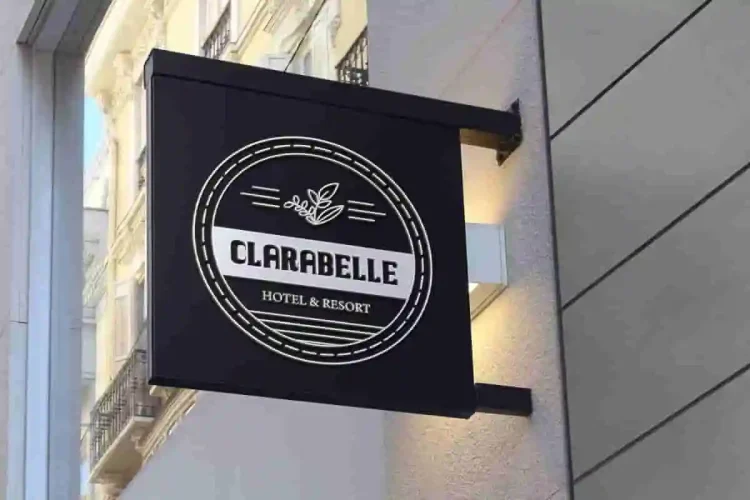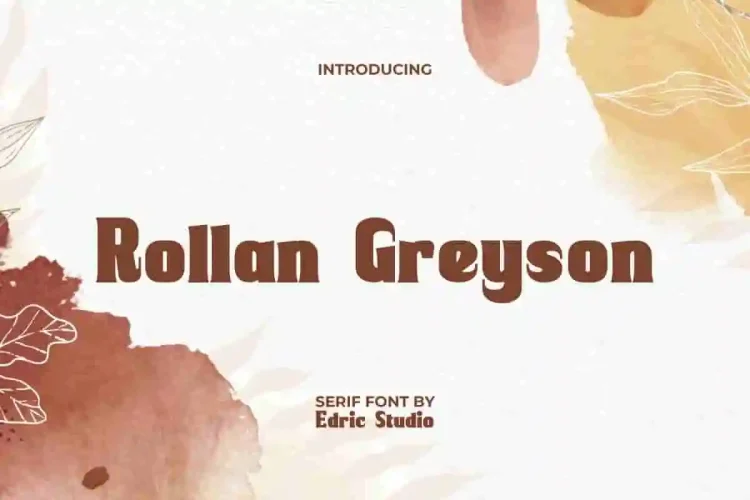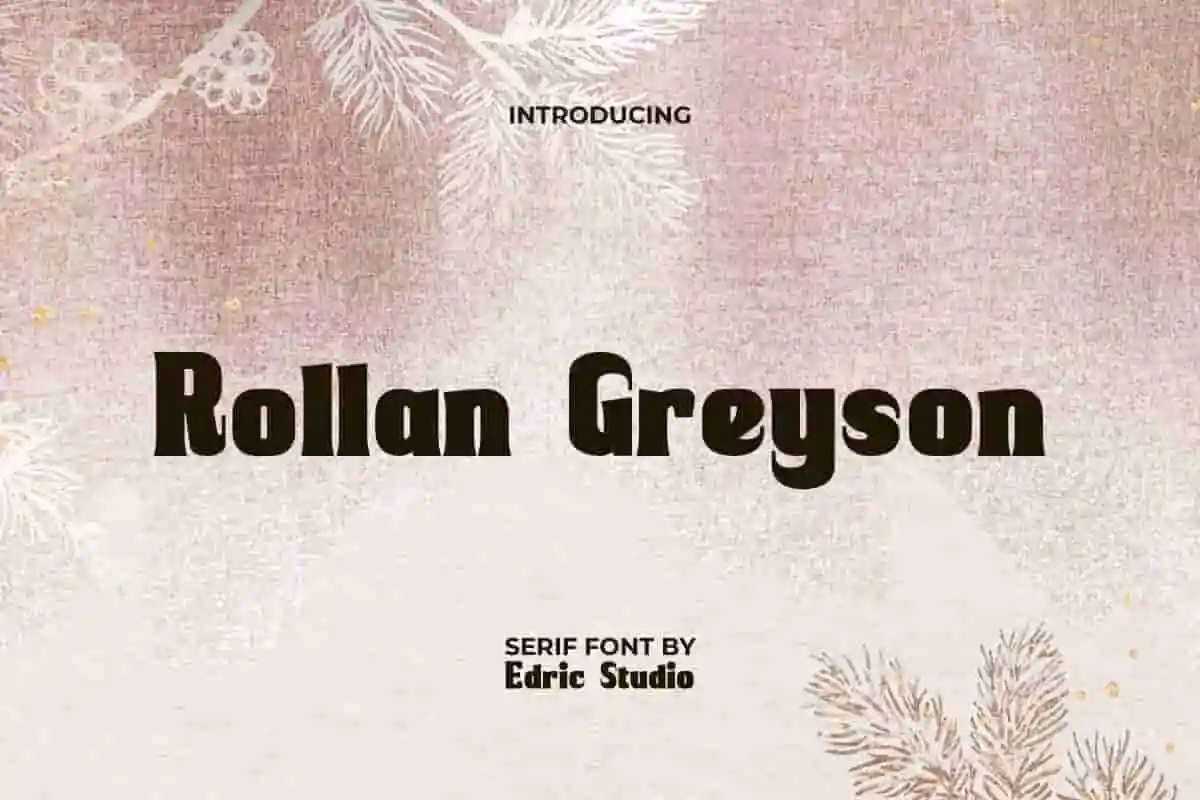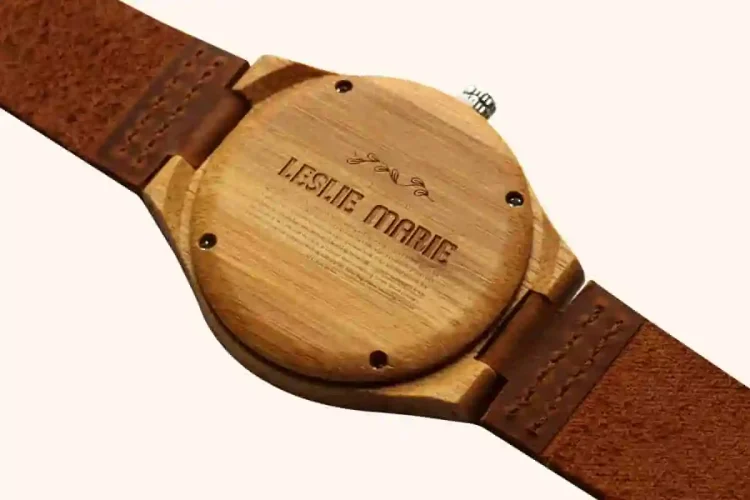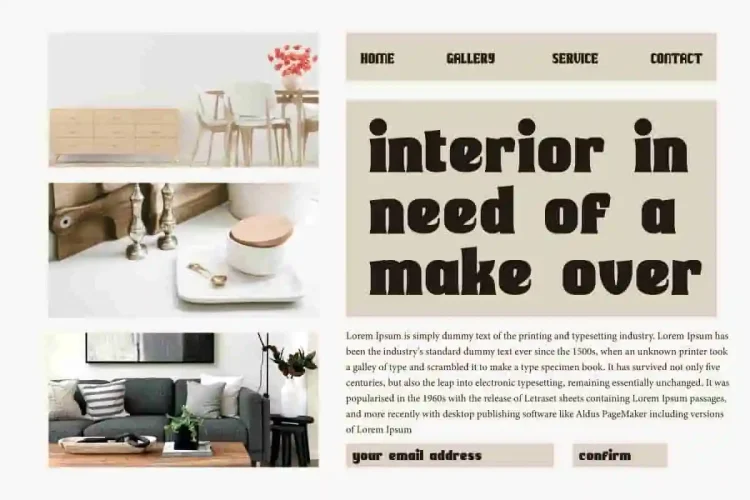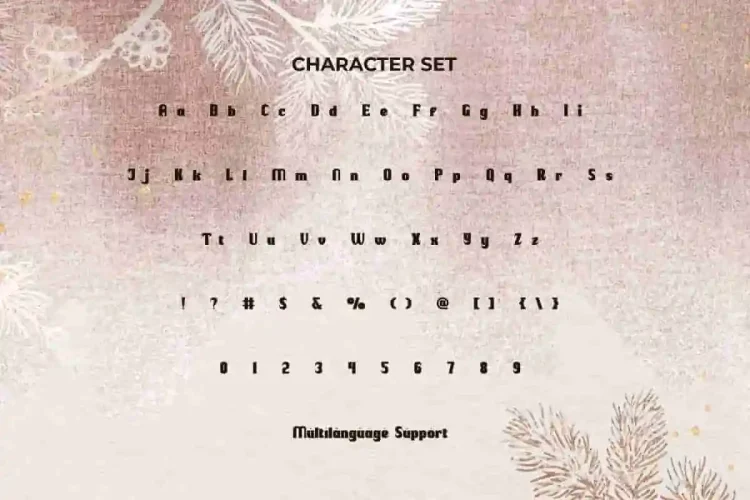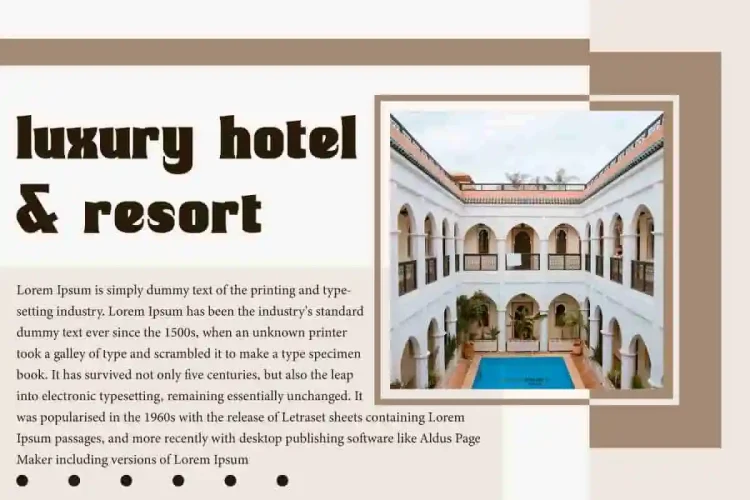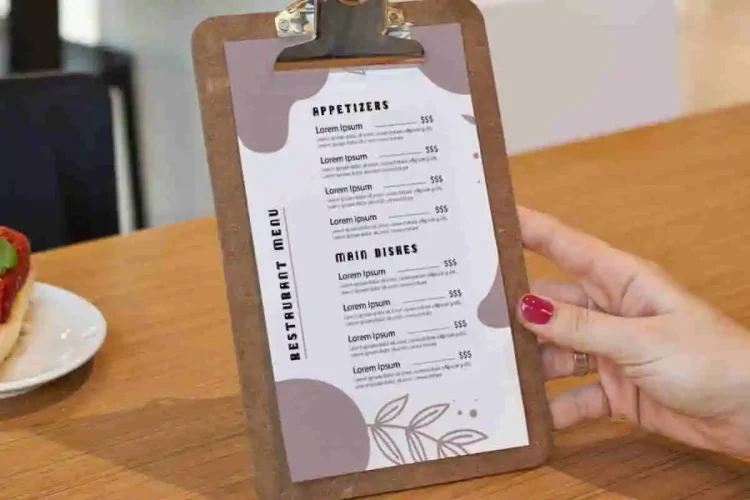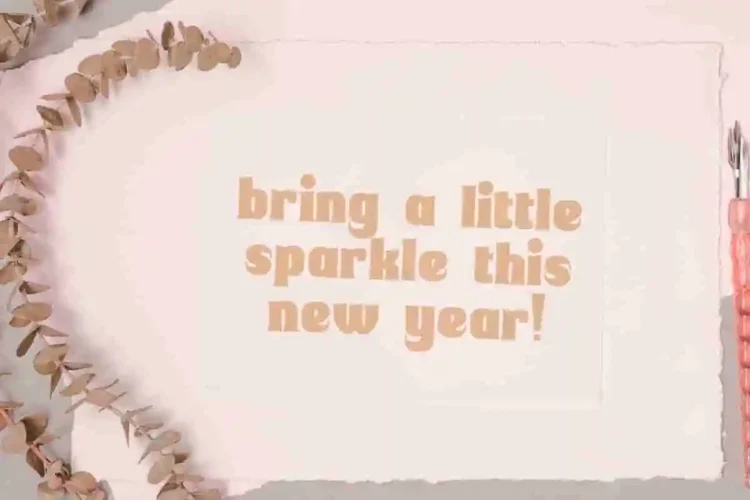
Rollan Greyson Cool Font
Rollan Greyson Font is an cool and bold serif display font, with a thin yet sharp, captivating letter tip style. Designed with a unique shape to make it attractive to look at. This font is very flexible in any design project, such as banners, blogs, embossed design, flyer, headers, headline, label, logo, menu, poster, quotes, signage, title, website, and more. Add this font to your collection!
Rollan Greyson Font comes with a complete set of Uppercase and Lowercase Letters, Number, Punctuation, and Symbols. Its clean lines and subtle serif-inspired details create a harmonious blend that stands out in both digital and print media. Experience the essence of modernity and timeless elegance with this font. Perfect for advertising, handcraft, hotel, interior design, restaurant, resort, web designer, etc.